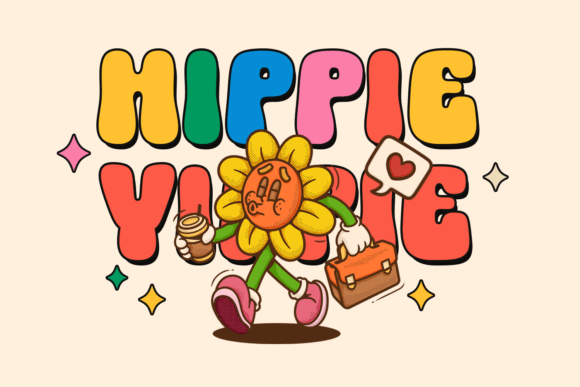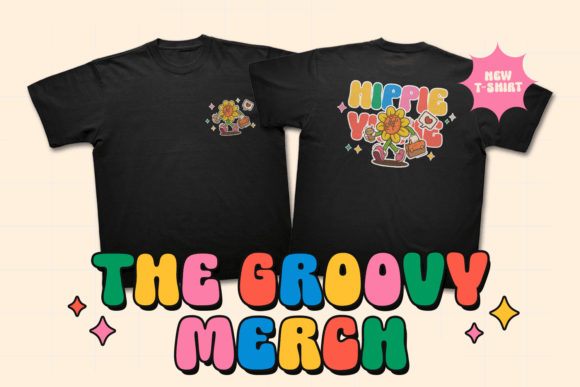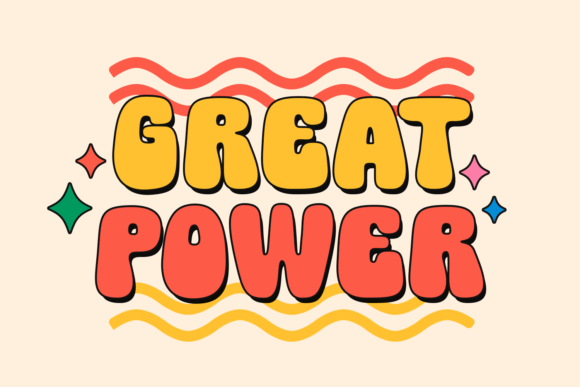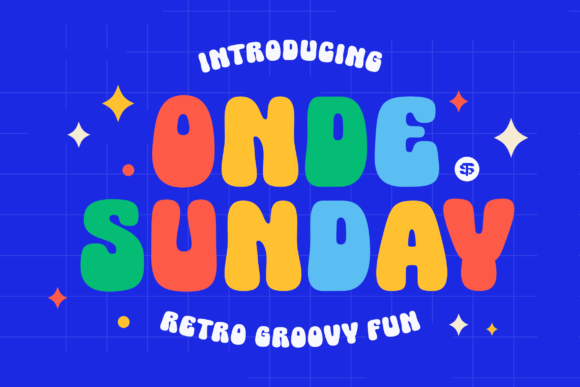
Introduction to Onde Sunday Font
Onde Sunday is a font that blends retro spirit with a modern twist, full of vibrant colors and cheerful vibes.
Inspired by the design styles of the 60s and 70s, this typeface brings back a nostalgic feel with its bold, rounded letters and captivating hues The name β€œOnde Sunday” draws from the leisurely Sunday tradition, where time slows down and is filled with delightful activities.